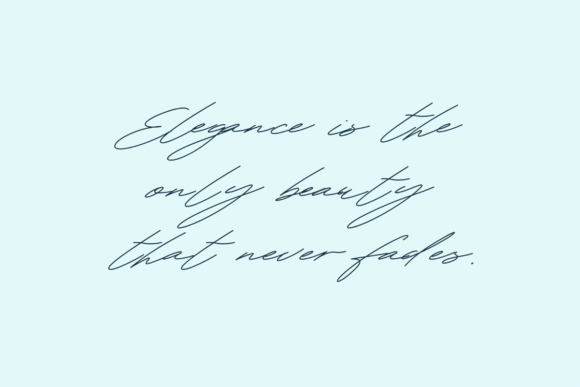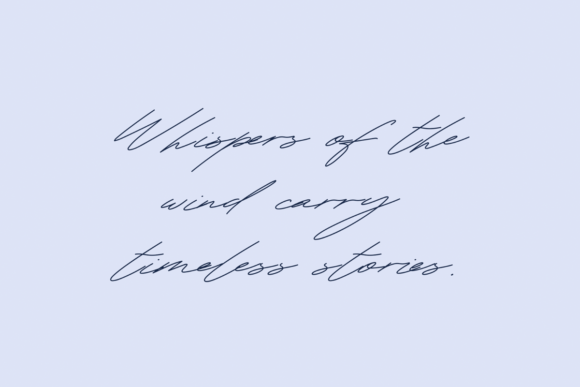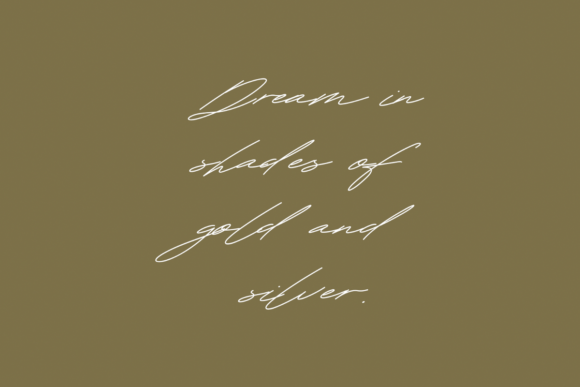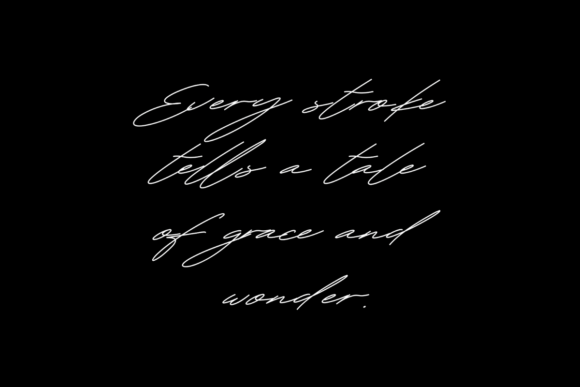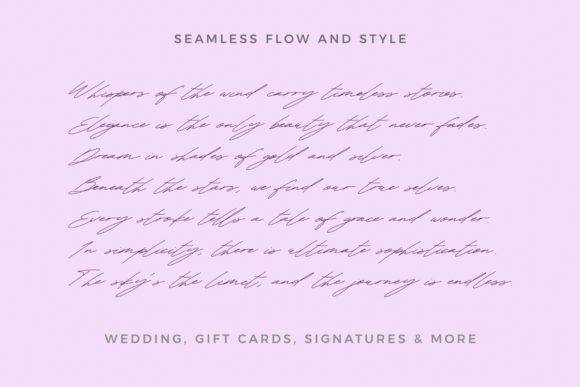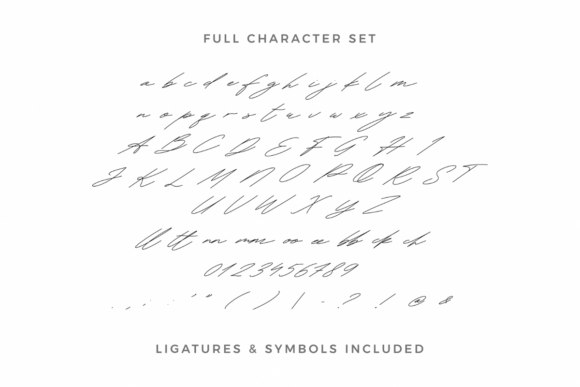
Discover the Elegance of Allure Script Font
Meet Allure Script – an epitome of elegance captured in a unique hand-lettered script font. This cursive masterpiece embodies a personalized, artistic style meticulously crafted to add a special touch to your creations. From enhancing the charm of wedding invitations to adding a finishing flourish to gift cards, from personalizing signatures to prettifying planners or even simply refining your note-taking, Allure Script effortlessly elevates the aesthetic sensibility of your projects.
The Art of Hand-Lettered Elegance
Allure Script is more than just a font – it’s an artistic expression that brings a touch of sophistication and whimsy to your designs. Its unique hand-lettered style is characterized by flowing lines, delicate connections, and a dash of personality. Each letter is carefully crafted to create a sense of movement and fluidity, making it perfect for projects that require a touch of elegance and refinement.
One of the most exciting aspects of Allure Script is its versatility. This enchanting font can be used in a wide range of creative projects, from:
- Wedding Invitations: Add a touch of romance and whimsy to your wedding stationery with Allure Script.
- Gift Cards: Make your gift cards stand out with a personal touch of elegance.
- Signatures: Elevate your digital signatures to an art form with Allure Script.
- Planners and Journals: Add a touch of sophistication to your planners and journals.
- Note-Taking: Refine your note-taking with a font that’s both elegant and easy to read.
Why Choose Allure Script?
So, what sets Allure Script apart from other script fonts? Here are just a few reasons why designers and crafters love this enchanting font:
- Unique Hand-Lettered Style: Each letter is carefully crafted to create a sense of movement and fluidity.
- Elegant and Refined: Allure Script adds a touch of sophistication to any project.
- Versatile: Use it in a wide range of creative projects, from wedding invitations to planners.
- Easily Readable: Despite its elegant style, Allure Script is easy to read, making it perfect for body text and headings.
Tips for Using Allure Script
To get the most out of Allure Script, here are a few tips to keep in mind:
- Mix and Match: Combine Allure Script with other fonts to create a unique and visually appealing design.
- Play with Size and Color: Experiment with different sizes and colors to add depth and interest to your design.
- Use it Sparingly: Use Allure Script to add a touch of elegance to specific elements of your design, rather than overusing it.
Allure Script is a true gem in the world of script fonts. Its unique hand-lettered style, elegant refinement, and versatility make it a must-have for designers and crafters looking to add a touch of sophistication to their projects. Whether you’re creating wedding invitations, gift cards, or simply want to elevate your note-taking, Allure Script is the perfect choice. So why wait? Immerse yourself in the artistic allure of this enchanting font and take your designs to the next level!